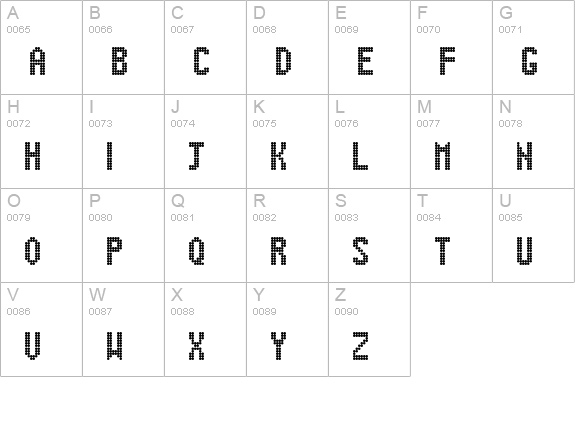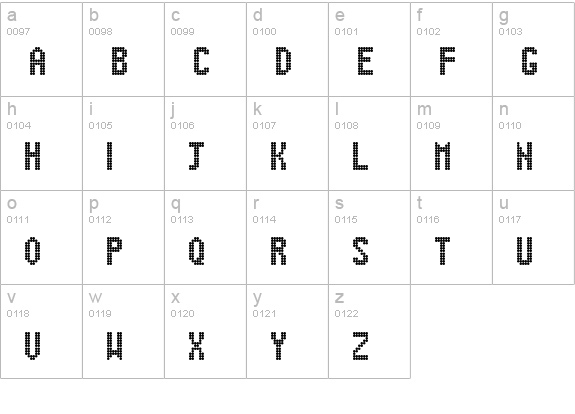
Digital Dot Roadsign Font Details
Digital Dot Roadsign is a free for personal use font in the Modern > Digital category, designed by Darrell Flood. It has been downloaded 19 times and is available for Windows, Mac and Linux.
Digital Dot Roadsign is a modern and eye-catching font that is perfect for creating road signs, posters, banners, and other digital designs. This font features a unique dot matrix style, giving it a futuristic and dynamic look. Its clean lines and sharp edges make it highly legible, ensuring that your message will be easily understood by viewers.
Digital Dot Roadsign offers a wide range of characters and symbols, allowing you to customize your designs to suit your specific needs. With its bold and impactful appearance, this font is particularly well-suited for creating attention-grabbing signage. From highway signs to street directions, Digital Dot Roadsign will make your messages impossible to miss.
The versatility of Digital Dot Roadsign extends beyond road signs. This font can be used in various digital projects, such as websites, apps, and social media graphics. Its modern and futuristic aesthetic will instantly elevate the visual appeal of any design.